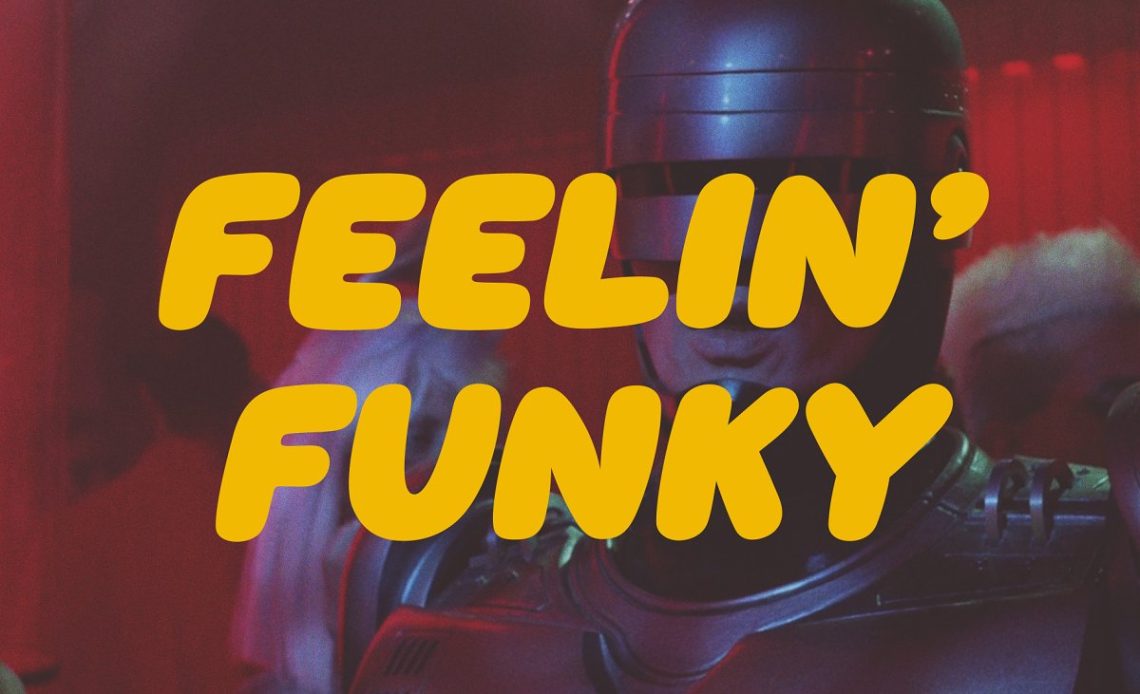
GUMZILLA is a rounded font that comes in three styles: regular, shiny, and slimy. Its design is inspired by the vibrant package designs of the 80s and 90s, giving it a nostalgic yet fresh look. This font is perfect for creating captivating headers that will grab anyone's attention. But that's not all - it's also ideal for text blocks, making your written content look stylish and engaging.
But wait, there's more! When you choose the Gumzilla Font Plus Graphic Pack, you're not just getting fonts. We've included a set of doodles and seamless patterns to make your design process a breeze. These additional elements will add a playful touch to your projects, helping you create eye-catching designs in no time.
As a bonus, we've included 12 seamless patterns from our 'The 90's' project. These patterns will add a touch of nostalgia to your designs, capturing the essence of that iconic era.
Unleash your imagination and bring your creative visions to life with the Gumzilla Font Plus Graphic Pack. Whether you're designing for kids or simply want to add a playful touch to your projects, this collection has everything you need.